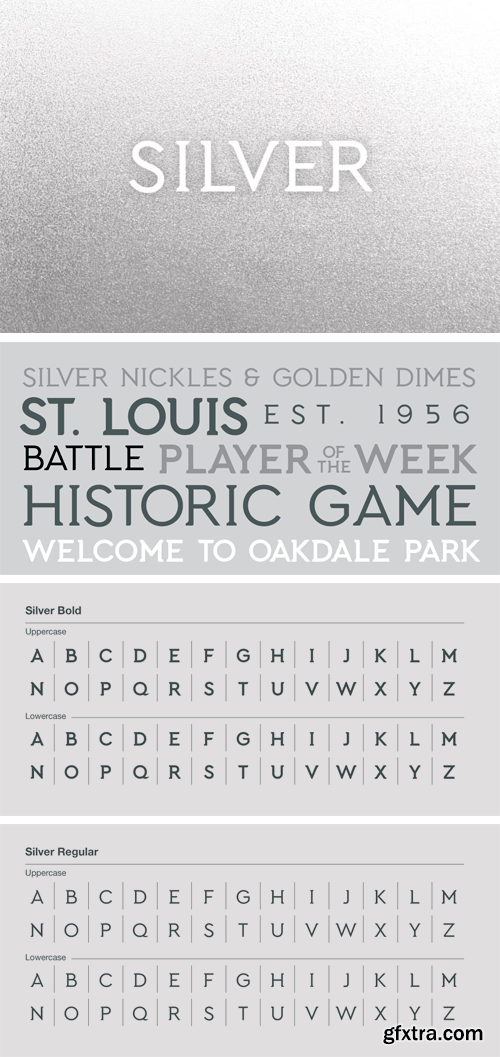
Silver Font Family
This classic, elegant display type is perfect for any grand occasion. With this type, Silver finishes second to nobody! Come in regular and bold weights.